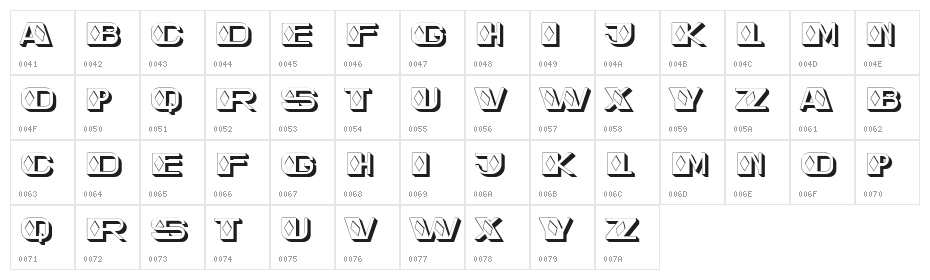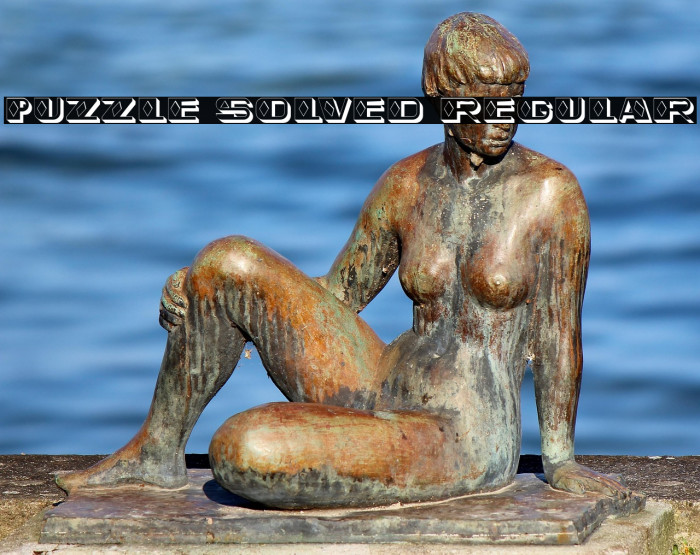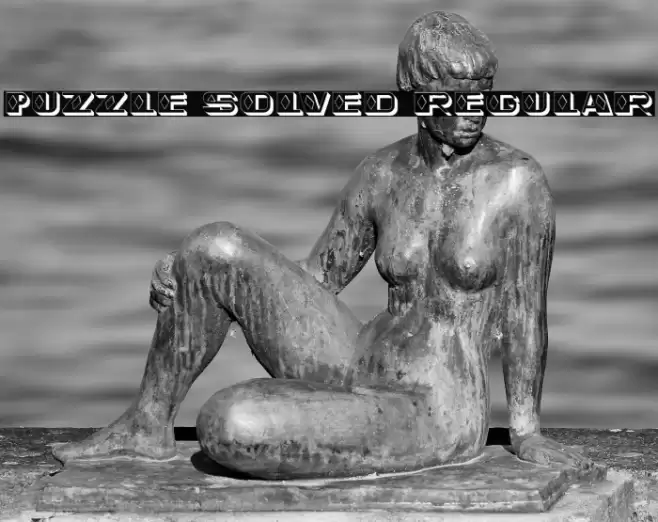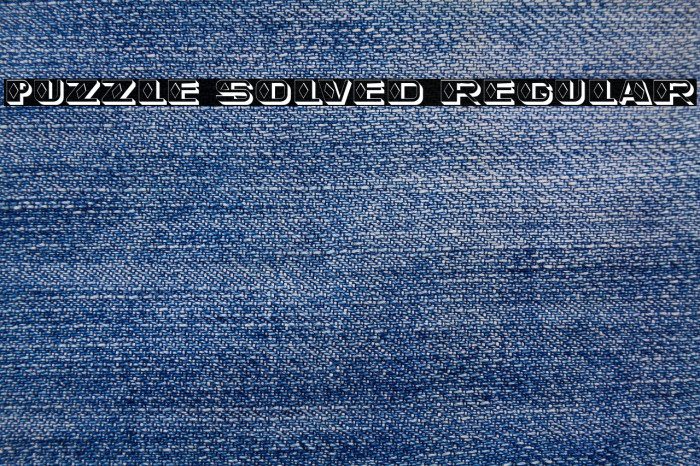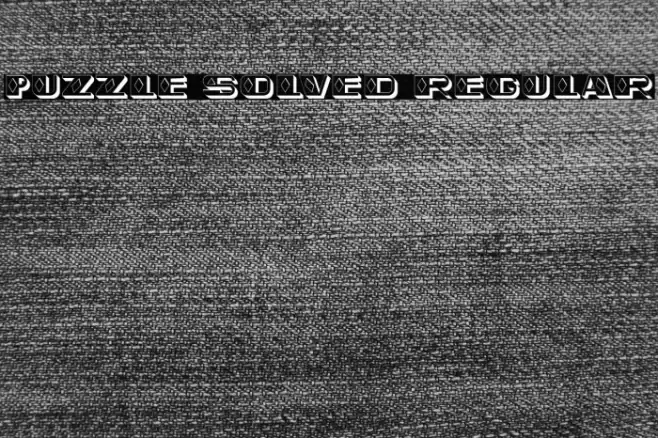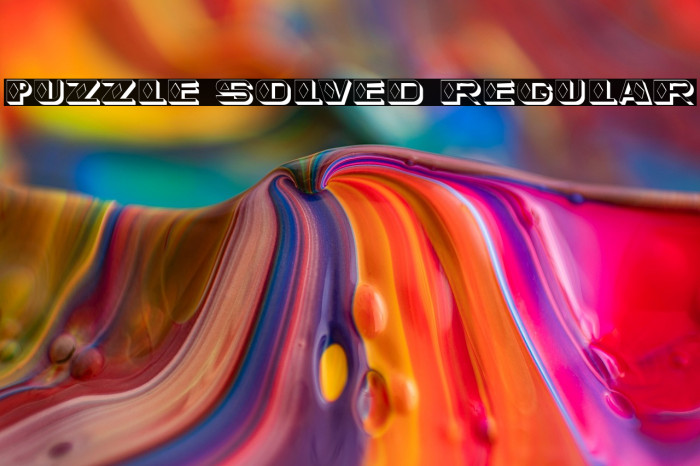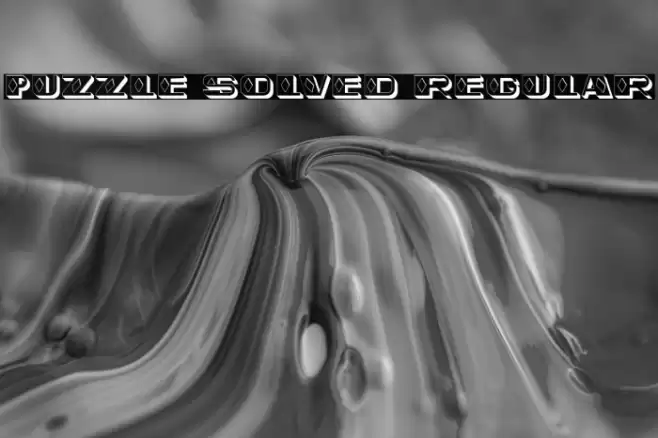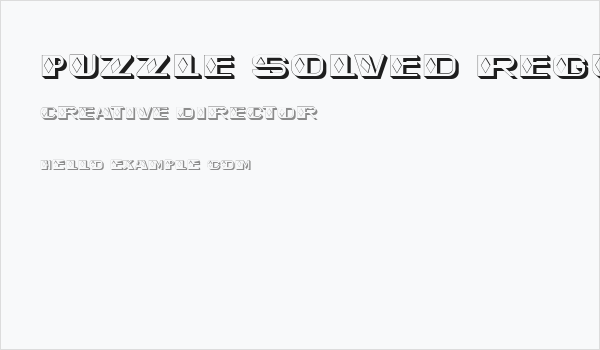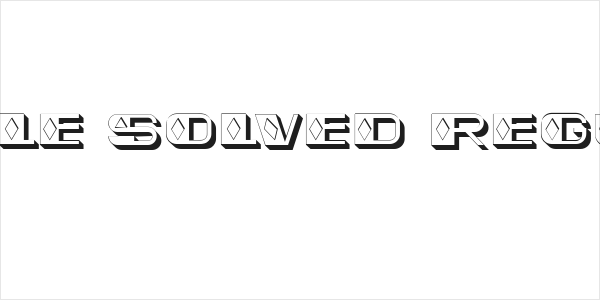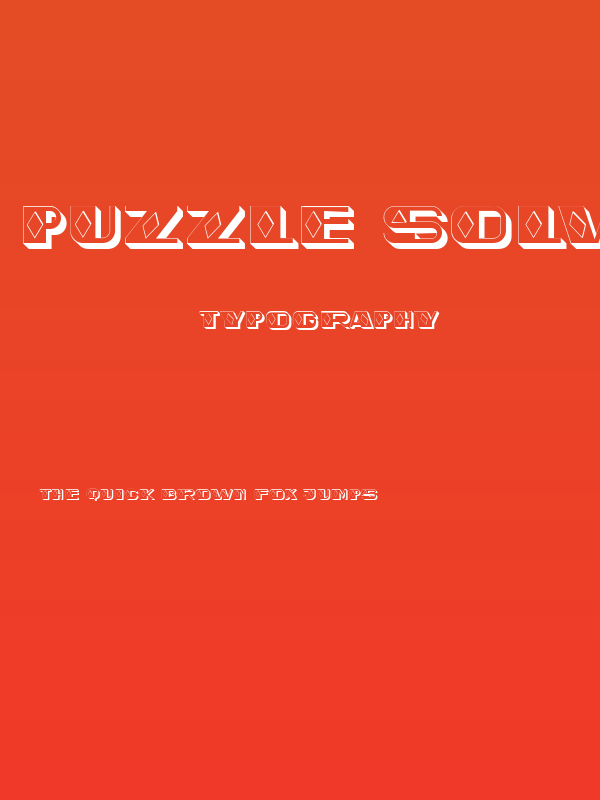
Puzzle Solved Regular Font
Puzzle Solved Regular Description
This font features a unique, geometric design with a three-dimensional effect. Each character is constructed with bold, angular lines and incorporates a shadow that gives it depth. The letters are uppercase, with a consistent height and width, creating a uniform appearance. The style is highly decorative, making it stand out with its intricate patterns and shapes within each letter. The font's design is reminiscent of a puzzle or maze, adding an element of intrigue and complexity. Its bold and striking appearance makes it ideal for attention-grabbing headlines or creative projects that require a distinctive and artistic touch.